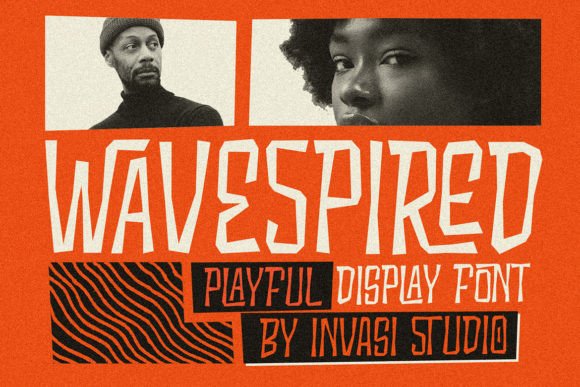
Journey through the annals of nostalgia with Wavespired Font, a remarkable font that masterfully merges the jubilant and vivacious essence of 1950s cartoon flair with a contemporary, polished design. Prepare to dazzle with captivating logos and headings that radiate an aura of uncontainable charm.
Wavespired Font draws inspiration from the captivating retro vibes of the fifties, artfully revamped with a refreshing, modern twist, making it an irresistible choice for contemporary design ventures. Its exceptional legibility and easy readability make it the perfect partner for headlines, titles, and a myriad of design elements yearning for effortless comprehension.
Unleash a surge of creativity with Wavespired Font, the ultimate ally for any endeavor that demands a playful, retro-inspired design with an innovative, modern twist. This font is an open invitation to embark on a journey through time, where the exuberance of the past harmoniously intertwines with the sophistication of the present.
With Wavespired Font, you hold the key to unlocking a realm of possibilities, from whimsical flyers and posters to captivating social media graphics and website designs that exude a unique, eye-catching charm. Embrace the allure of nostalgia while embracing the vibrant spirit of modernity, all within the strokes of this remarkable font.
Make Wavespired Font your secret weapon for leaving an unforgettable impression, leaving your audience captivated by your creations. Its versatility and effortless style make it a timeless treasure, ensuring that your designs stand the test of time.